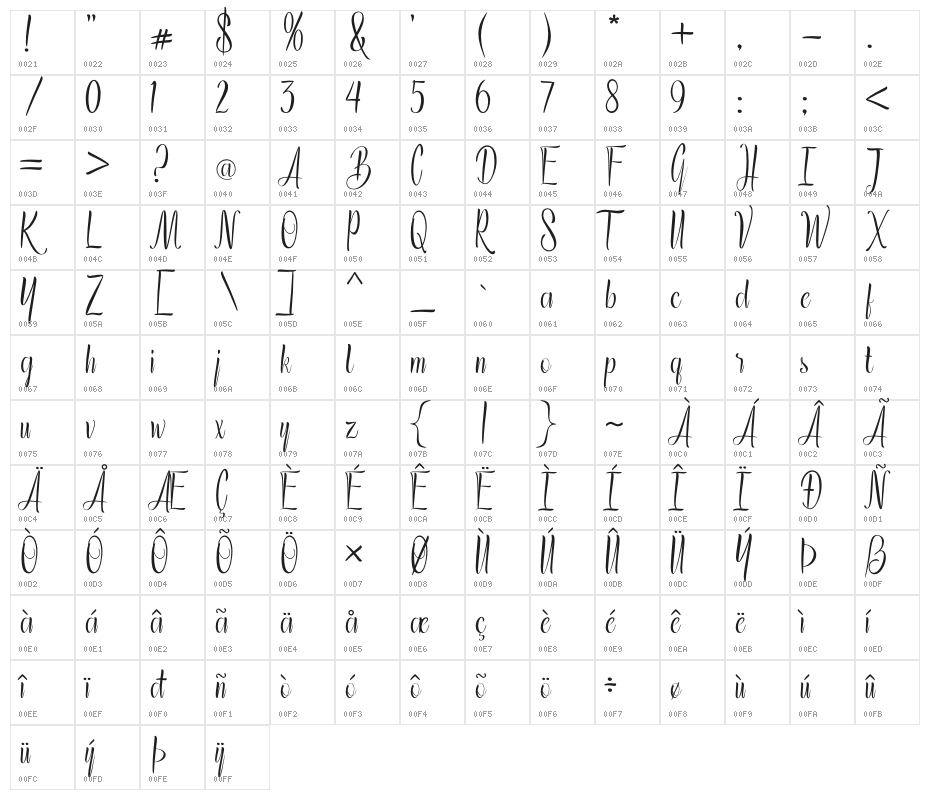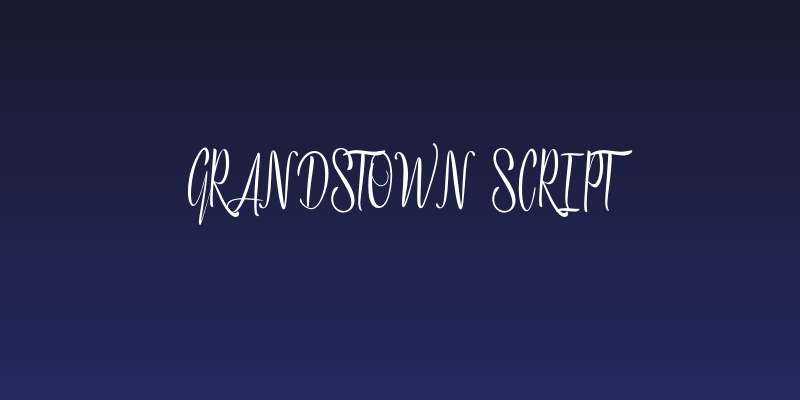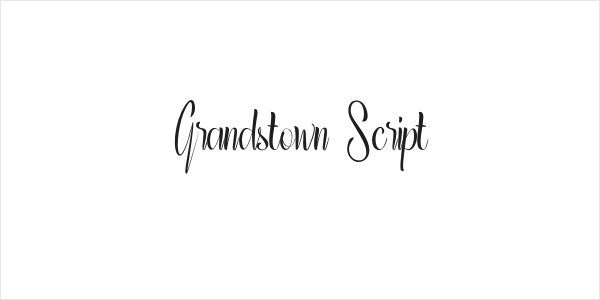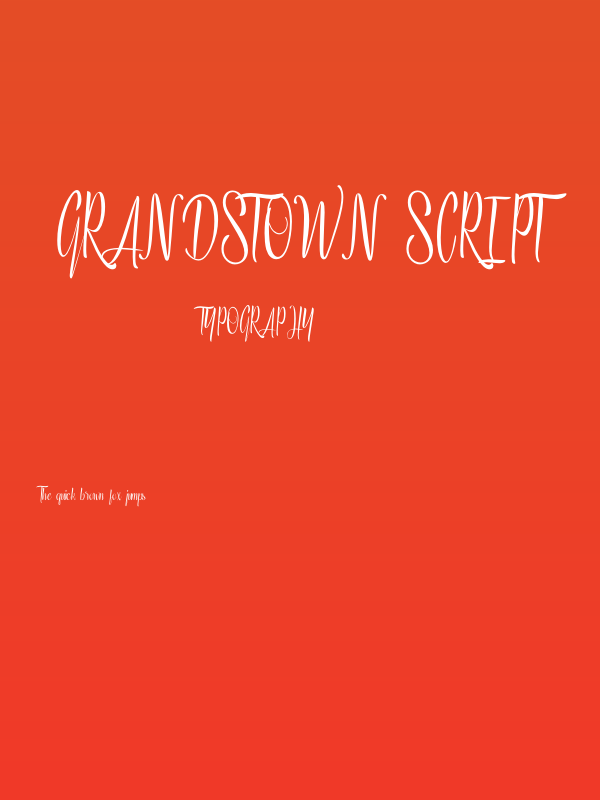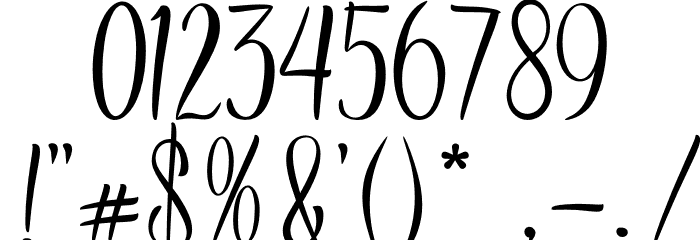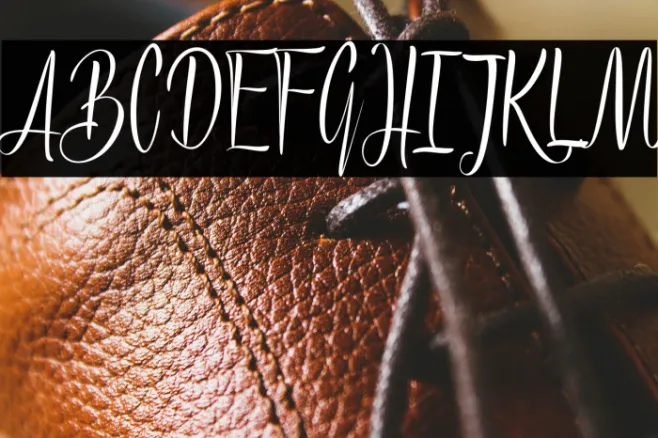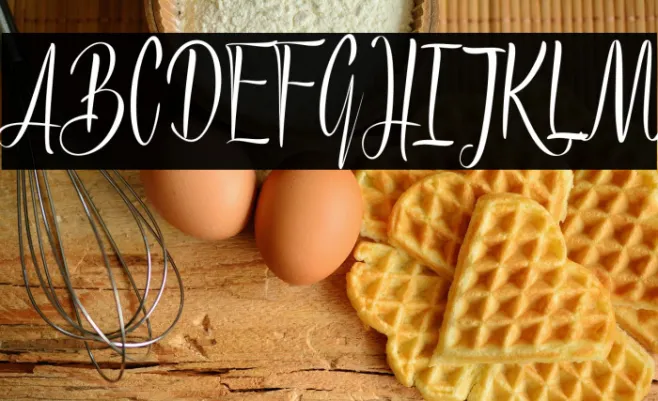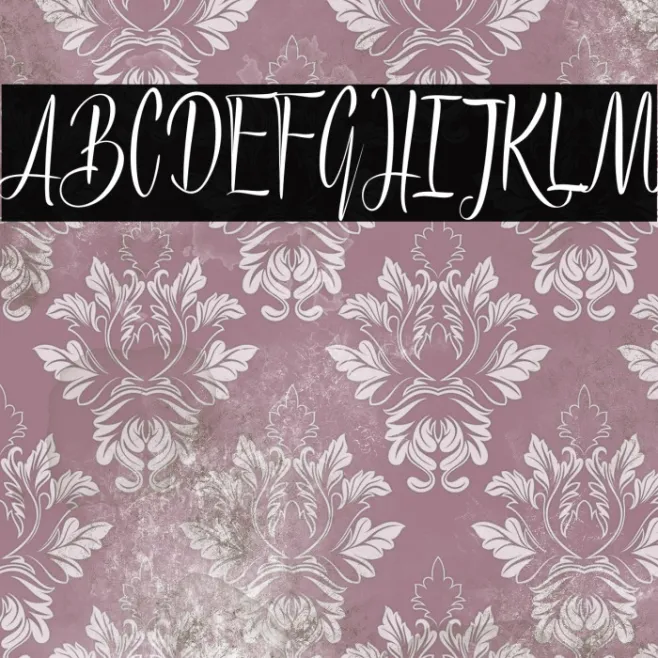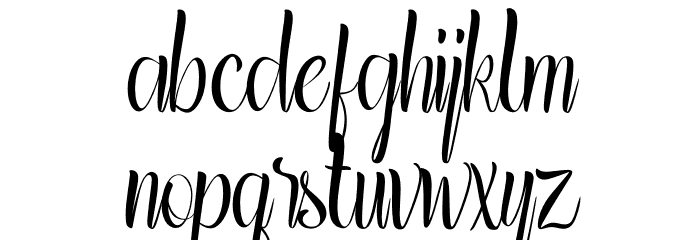
Grandstown Script Font
Grandstown Script Description
This font features an elegant and flowing script style, characterized by its smooth curves and connected letters. The uppercase letters exhibit a dramatic flair with elongated strokes and loops, while the lowercase letters maintain a consistent and harmonious flow. The numerals are designed with a similar fluidity, ensuring a cohesive look across all characters. Special characters are thoughtfully integrated, maintaining the overall aesthetic. This font exudes a sense of sophistication and creativity, making it ideal for projects that require a personal touch.
| Overall Style | Elegant |
| Use Case | Logos, Invitations, Decorative text |
| Proposed Projects | Ideal for wedding invitations, greeting cards, branding, and logo design. |